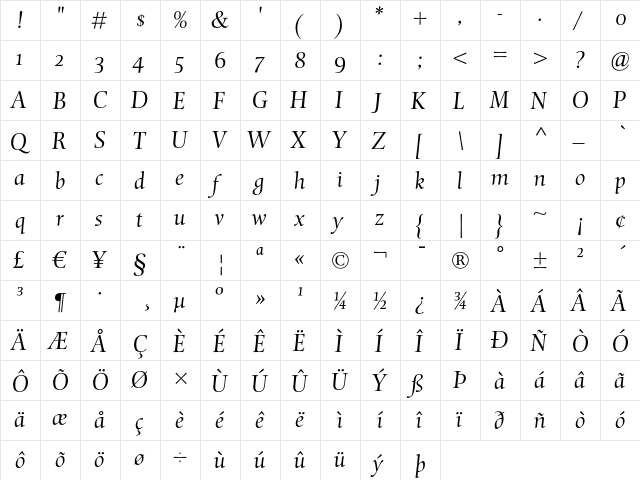
Mentor Light Italic OsF Font Preview
Design Context for Mentor Typeface
Mentor takes a measured approach to typography — its balanced proportions and neutral character make it a reliable workhorse for both digital and print work. Its italic angle brings a sense of urgency and motion to the letterforms. Its slender proportions lend an understated elegance to any composition.
Pro Tip: Try Mentor for annotation and caption copy alongside an upright companion — the contrast in angle creates a dynamic but ordered typographic system.